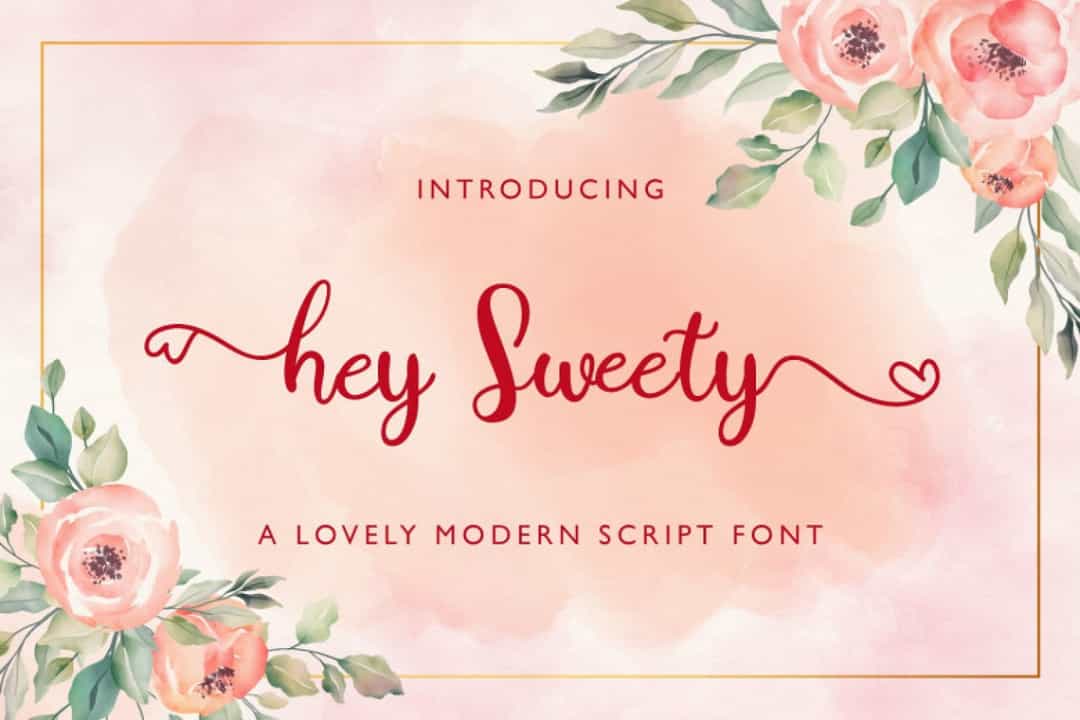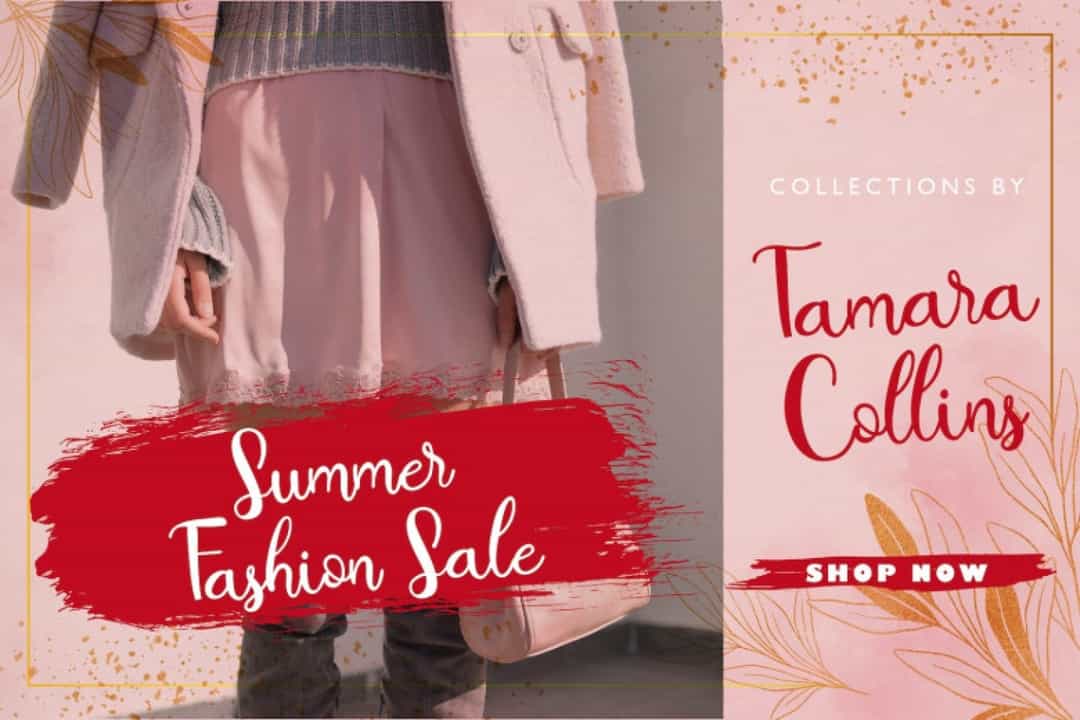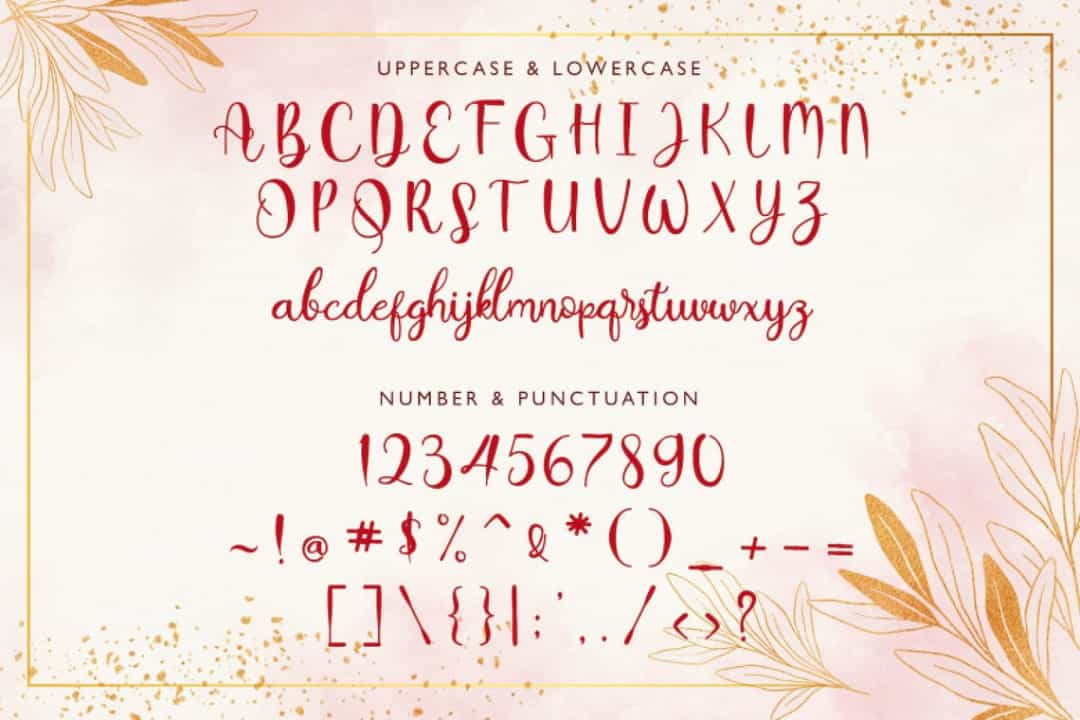
Hey Sweety is an ideal font to pair with tails-alternate characters, offering a contemporary hand-written calligraphy script font and making beautiful typography quickly by hand. Hey Sweety Font is ideal for designing any type of design project ranging from branding projects, logos, brochures, business cards, wedding invitations and social media posts with handwriting features.